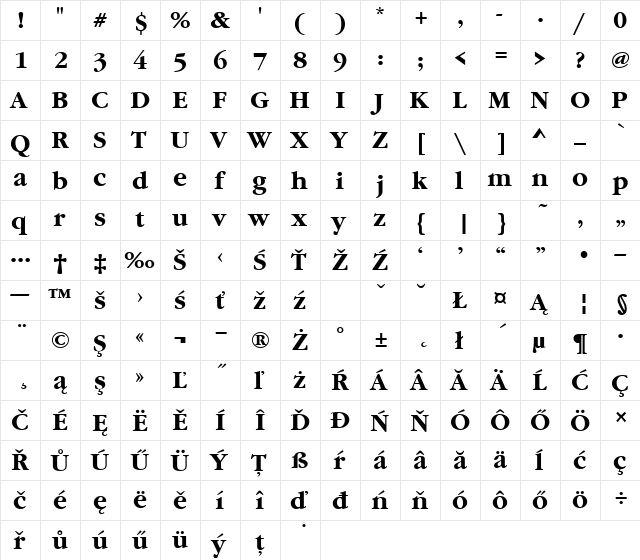
GaramItcTEE Bold Bold
GaramItcTEE Bold takes a measured approach to typography — its balanced proportions and neutral character make it a reliable workhorse for both digital and print work. Its bold stroke weight gives it real presence on the page.